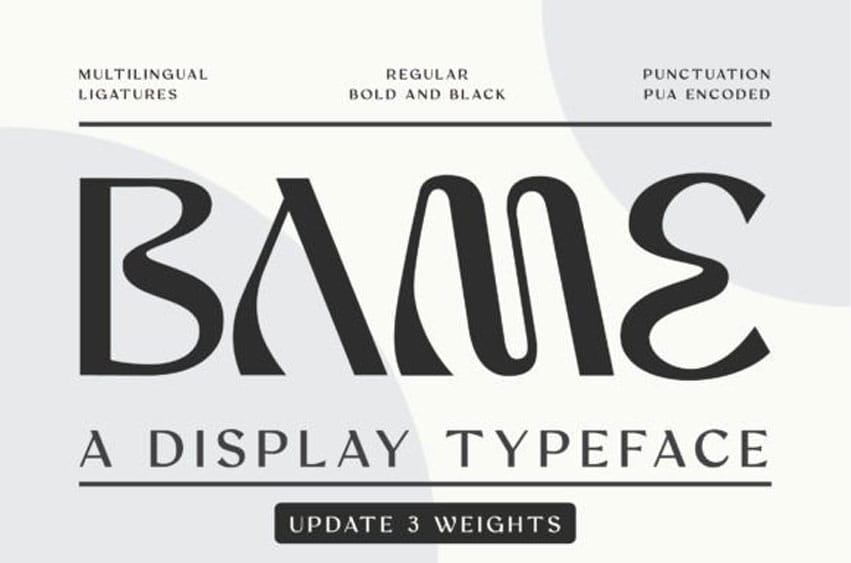
Bame Font is a display serif typeface that has 3 weights and a distinct curve and a lively personality.
It is ideal for projects that require a distinct personality.